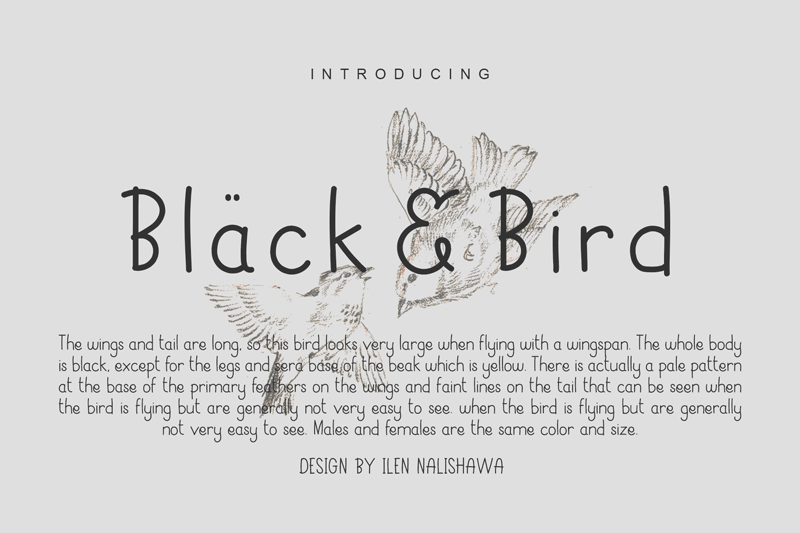
Font name: | Black Bird |
Author: | Owlking Project |
Note by Owlking Project | |
Black & Bird handwritten form that has been tidied up and made into unique fonts and shapes, Black & Bird is also supported with punctuation and multi-language. please apply this font to reminisce about your childhood and school days� 🙂 FREE FOR PERSONAL & COMMERCIAL appreciate donate : PayPal.Me/ilennalishawa. Thank you |